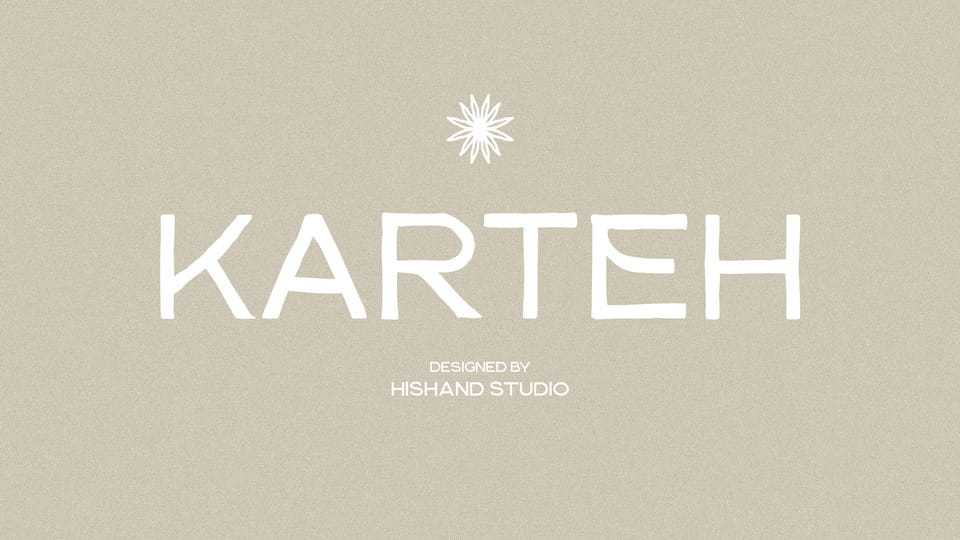
Download Karteh font, a hand-drawn sans serif typeface that blends playful character with clean, modern readability. Designed to feel organic and human, Karteh carries subtle imperfections that give each letter a warm, artistic presence